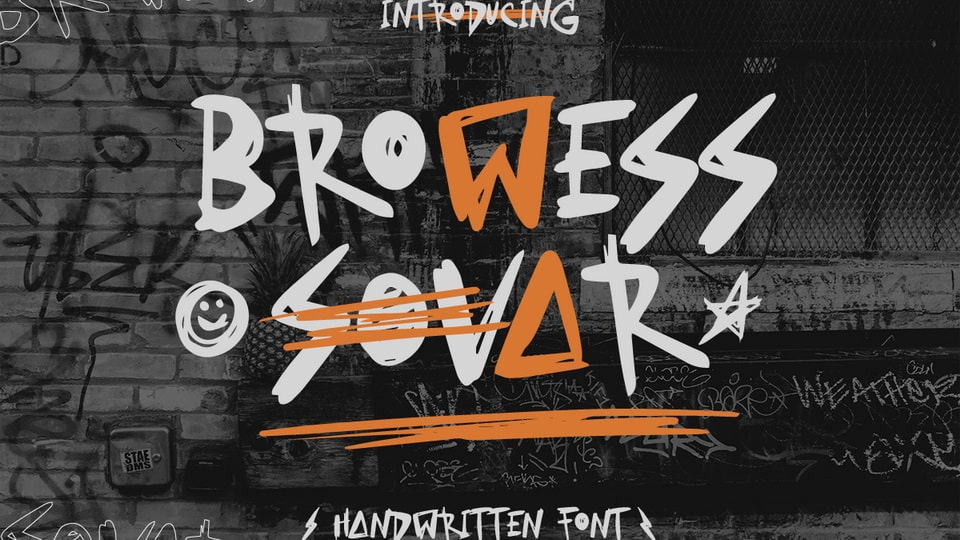
Download Browess Sovar font, a creepy handwritten typeface with hundreds of handwritten custom letter combinations. It makes Browess Sovar font look like it was scrawled with a pen, not typed with a computer.